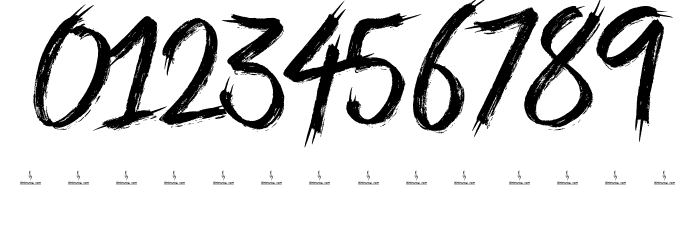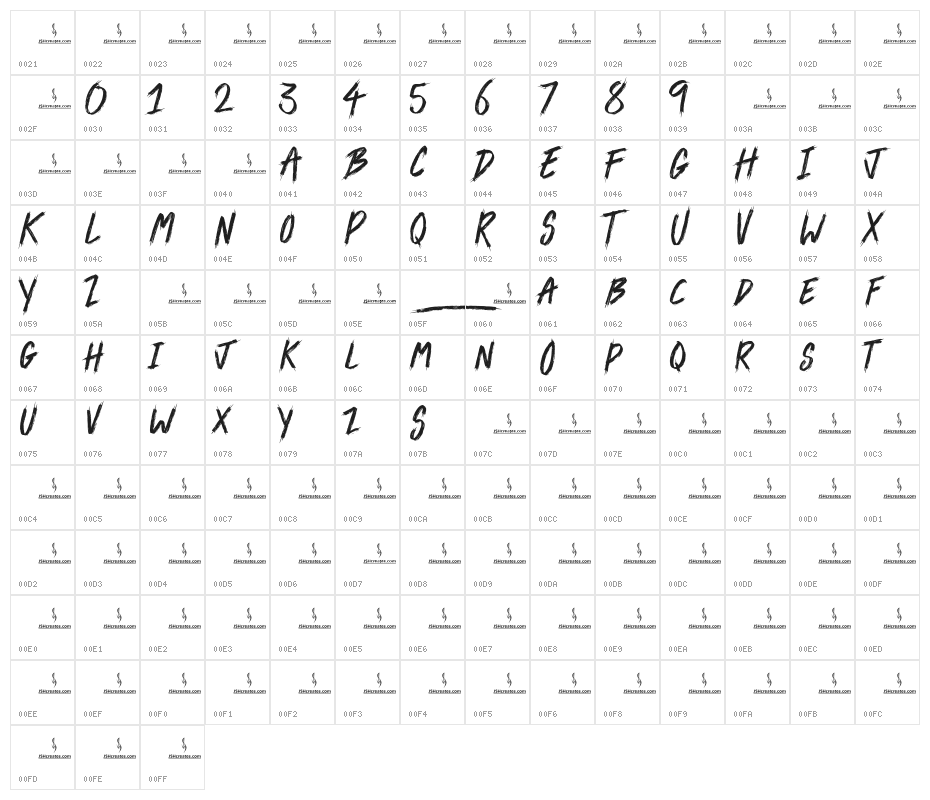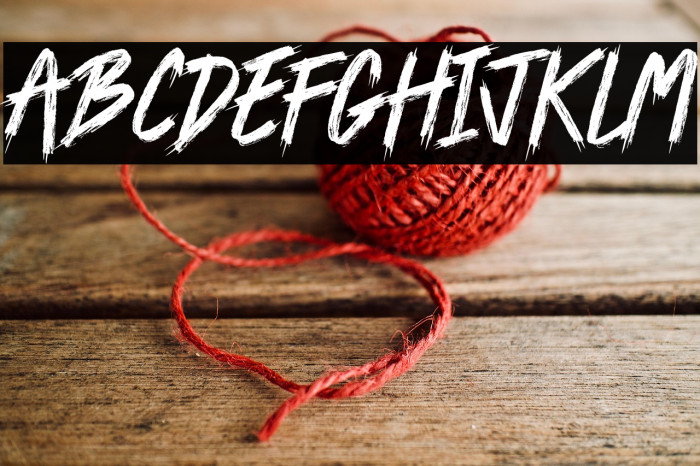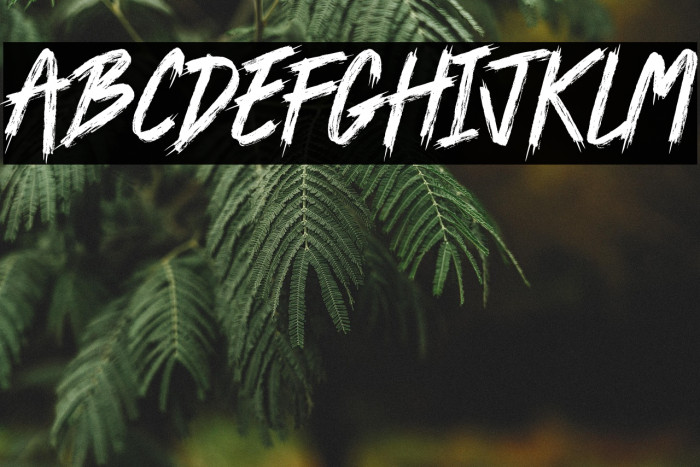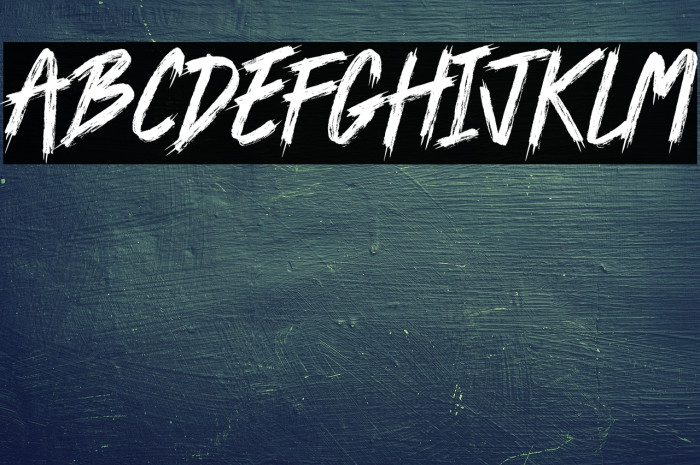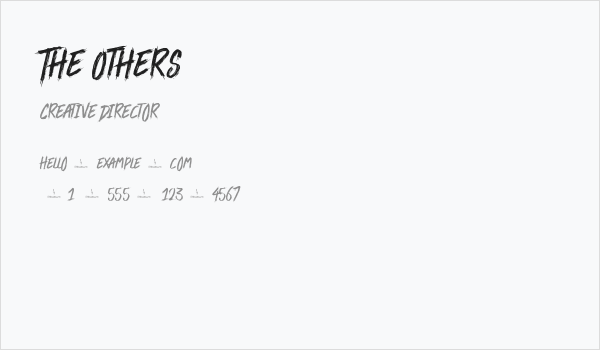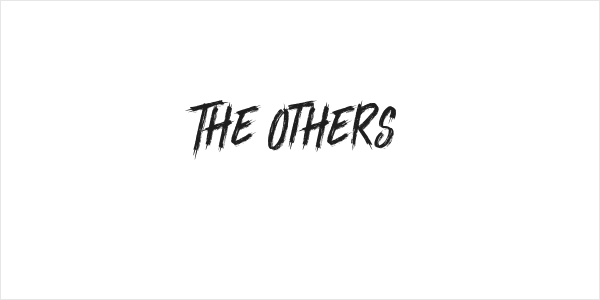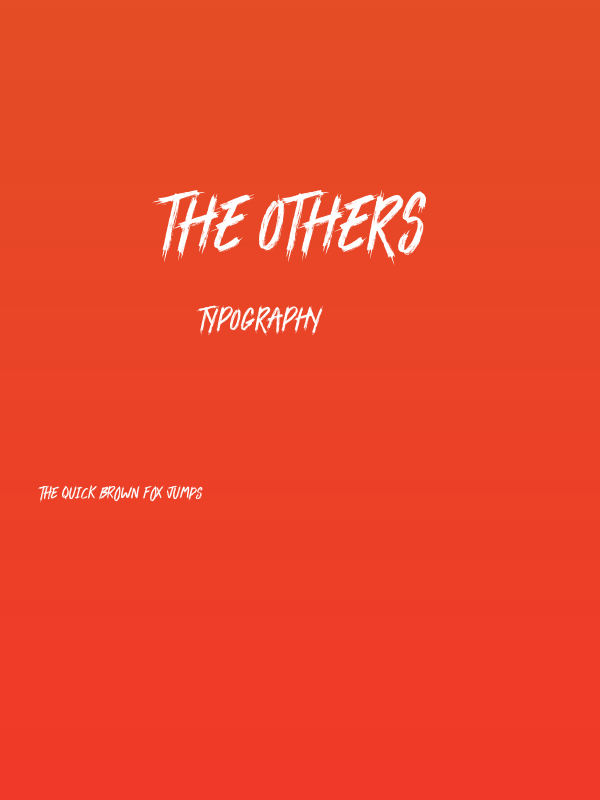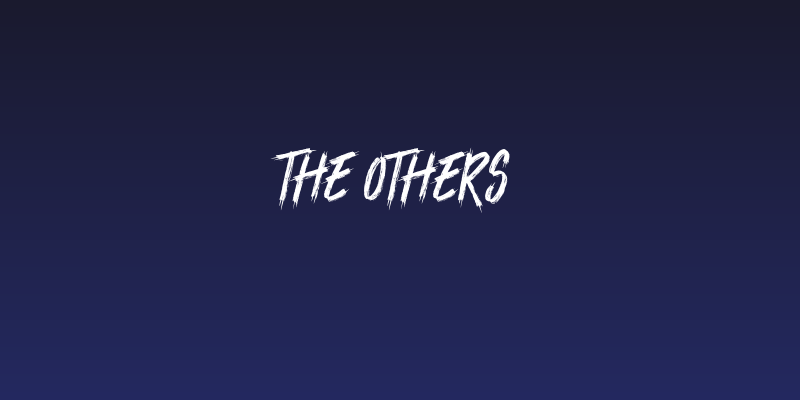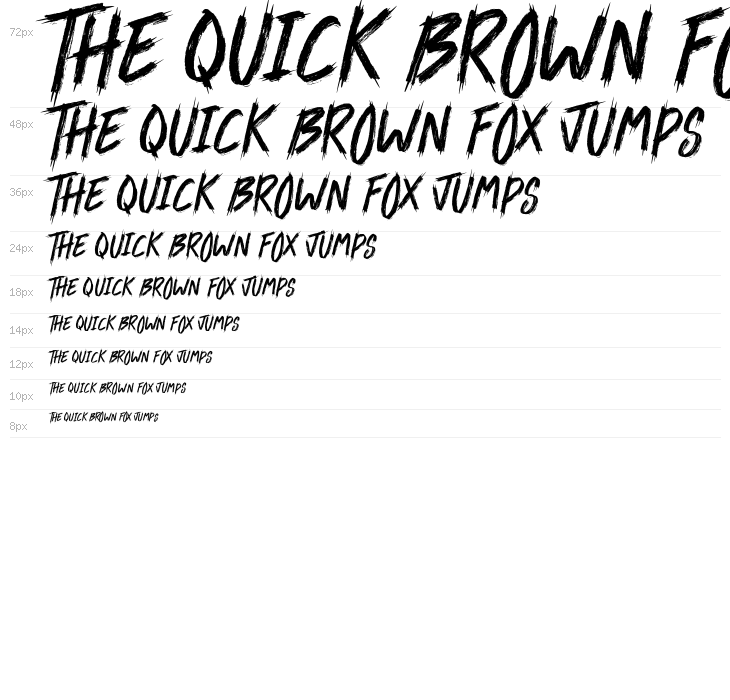
The Others Font
The Others Description
This font features a bold and dynamic brush style, characterized by its energetic strokes and rough edges. The letters are crafted with a sense of motion, giving them a raw and expressive appearance. The uppercase and lowercase letters maintain a consistent style, with each character exhibiting a unique flair. The numbers and special characters follow the same design principles, ensuring a cohesive look across all glyphs. This font's rugged and edgy aesthetic makes it ideal for projects that require a strong visual impact.
| Overall Style | Modern, Edgy |
| Proposed Projects | Ideal for music album covers, movie posters, streetwear branding, and dynamic social media graphics. |